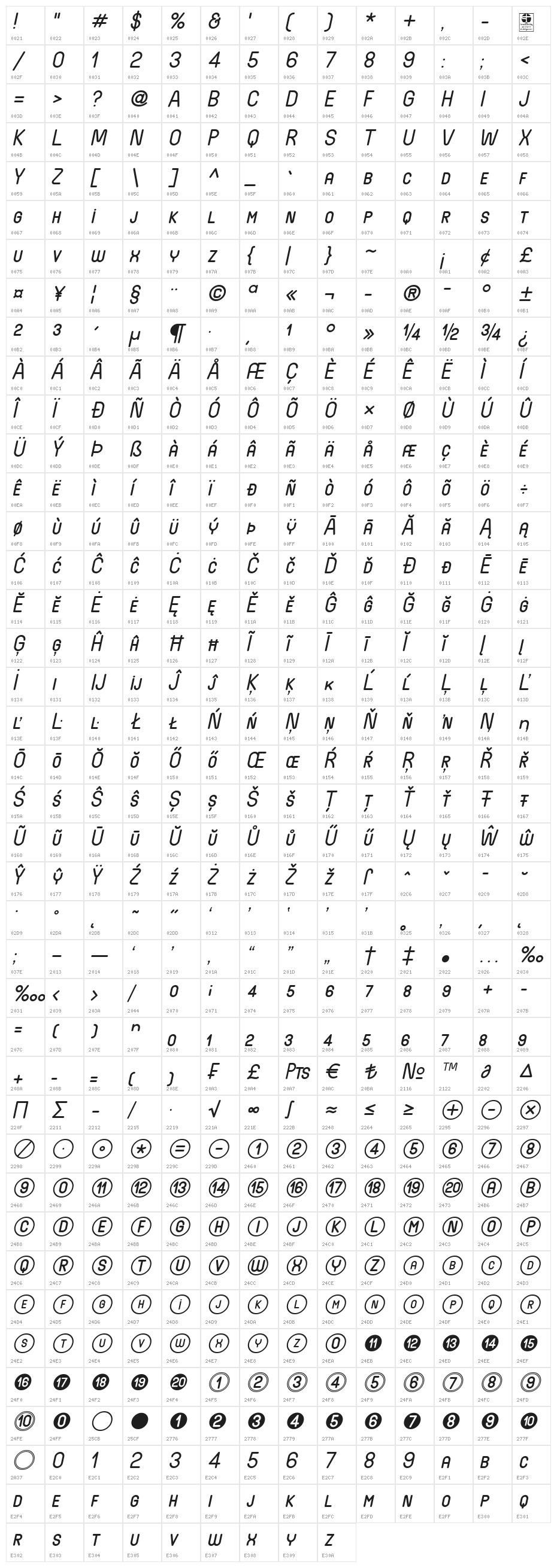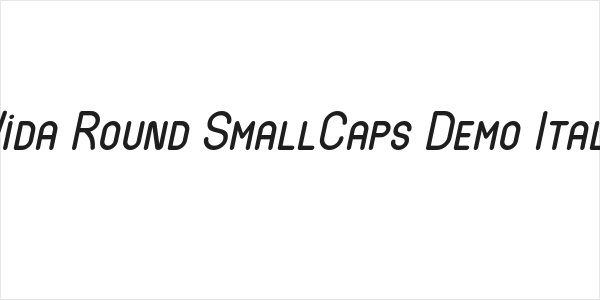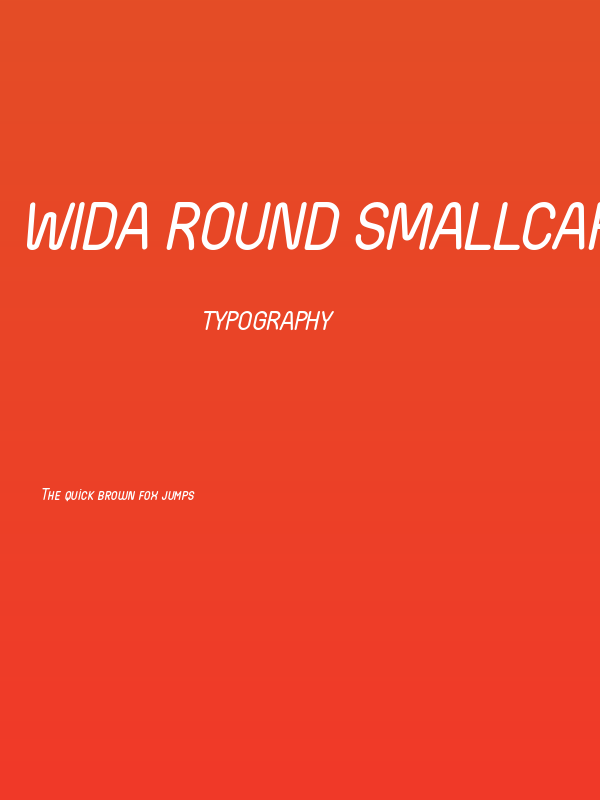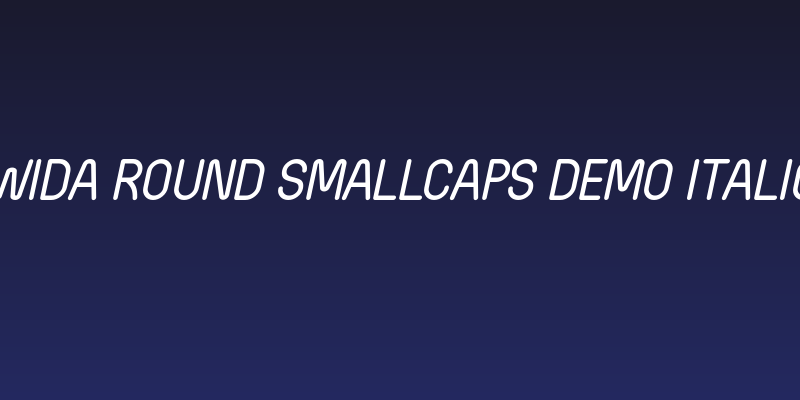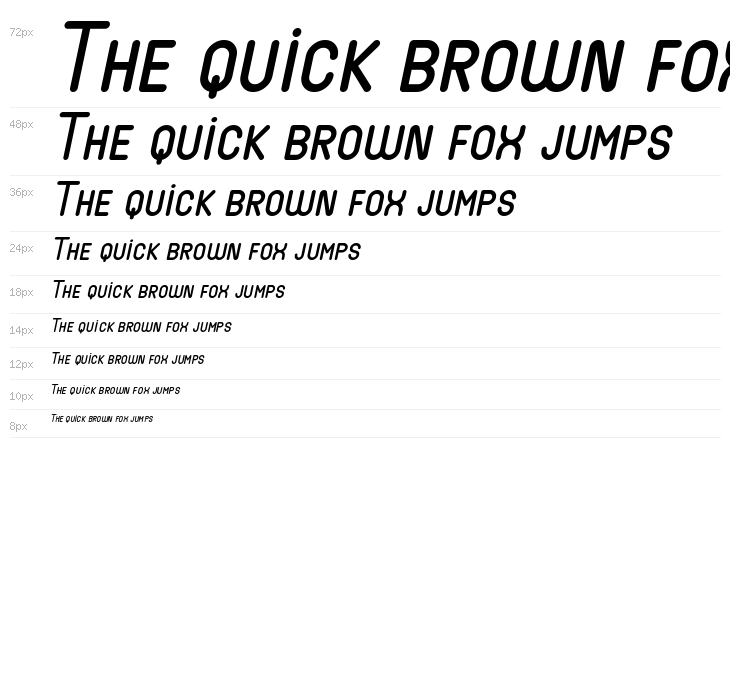
Wida Round SmallCaps Demo Italic Font
Wida Round SmallCaps Demo Italic Description
This font features a rounded, smooth appearance with a modern and friendly vibe. The characters are slightly italicized, giving them a dynamic and fluid look. The uppercase and lowercase letters maintain a consistent style, with rounded edges and uniform stroke widths. The numerals and special characters follow the same design principles, ensuring a cohesive appearance across all glyphs. The font's overall style is approachable and versatile, making it suitable for a variety of design applications.
| Use Case | Headlines, Logos, Digital Media |
| Proposed Projects | Ideal for branding, advertising, and digital media projects that require a modern and approachable aesthetic. |